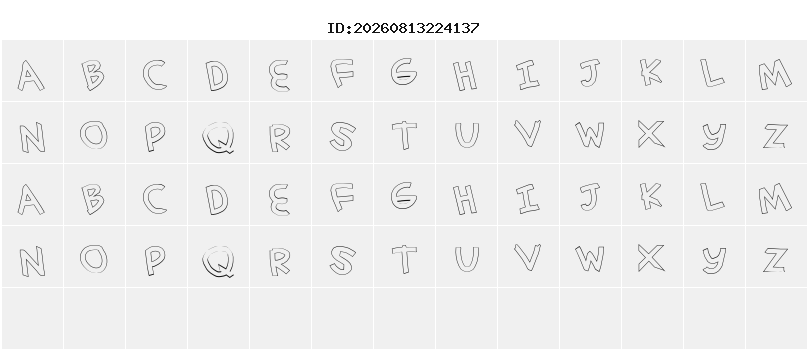
• Font Name: simplehand outline
• Full Font Name: simplehand outline
• Designer: andy greer and max infeld
• Description: simplehand done in svg format on android
About simplehand outline.ttf
simplehand outline.ttf is a modern, elegant sans-serif font designed for ultimate readability and visual harmony. Perfect for branding, headlines, web design, and print materials.